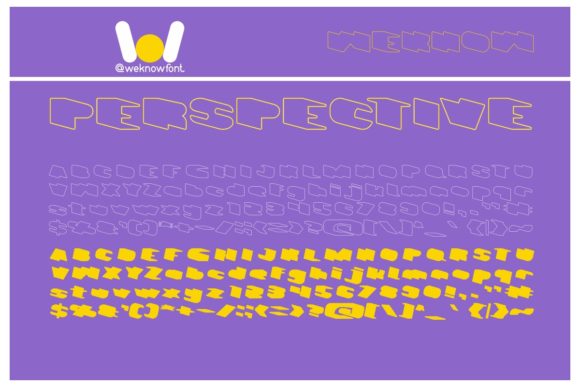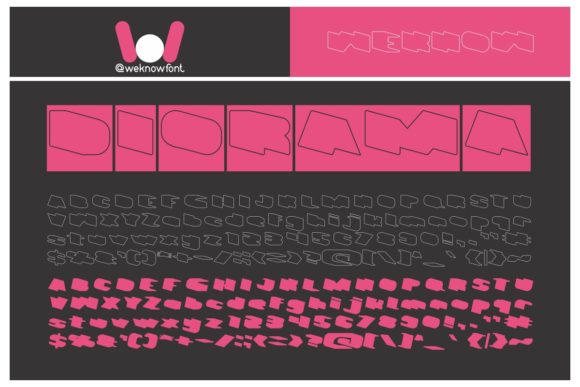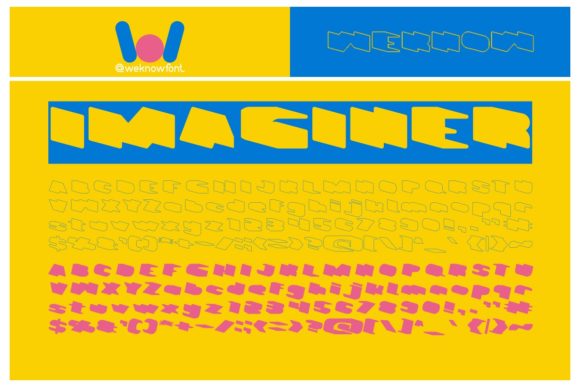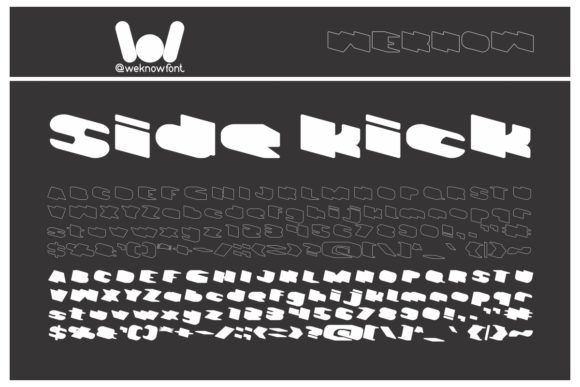
Introduction to Greatest View Font
Have you ever stared at a blank canvas, struggling to find the perfect font to bring your creative project to life? I know I have. It’s that moment of frustration when you need a game-changer, something that will make your design stand out and leave a lasting impression. For me, that moment came when I discovered the Greatest View Font.
This bold and cartoon-like display font is a design resource like no other. Its chunky lettered style is perfect for adding a touch of whimsy and personality to any design. Whether you’re working on a free download or a high-quality print project, the Greatest View Font is sure to elevate your work and make it truly unforgettable.
What sets the Greatest View Font apart is its versatility. Use it with a transparent background to create a striking visual effect, or pair it with a bold color to make a statement. With its high-quality design and endless possibilities, the Greatest View Font is a valuable addition to any designer’s toolkit.
Key Features of Greatest View Font
- High-quality design with a transparent background, perfect for creative projects and presentations.
- Unique characteristics include elegant lines, subtle textures, and a modern aesthetic, making it ideal for creative projects.
- Designed as a design resource for professionals and hobbyists alike, Greatest View Font is perfect for logos, branding, and typography.
Honest Review: Greatest View Font
I recently stumbled upon the Greatest View Font while searching for a free download for my creative project. As a designer, I’m always on the lookout for high-quality design resources to elevate my work, and I must say that this font did not disappoint.
What works well about the Greatest View Font is its versatility. It comes in a range of styles and weights, making it perfect for various design applications. The font is also available with a transparent background, which is a huge plus for designers who need to create seamless compositions. ✨ The font’s high-quality design ensures that it looks great on any screen resolution or print material.
- Available in various styles and weights
- Includes transparent background option
Overall, I would recommend the Greatest View Font for personal or small-scale projects. Its high-quality design and versatility make it a great addition to any designer’s toolkit. However, for more extensive or commercial projects, I would recommend exploring other options to ensure you meet all the necessary requirements.
Tips for Getting the Most Out of the Greatest View Font
Use the Greatest View Font with a transparent background to create a unique and eye-catching design.